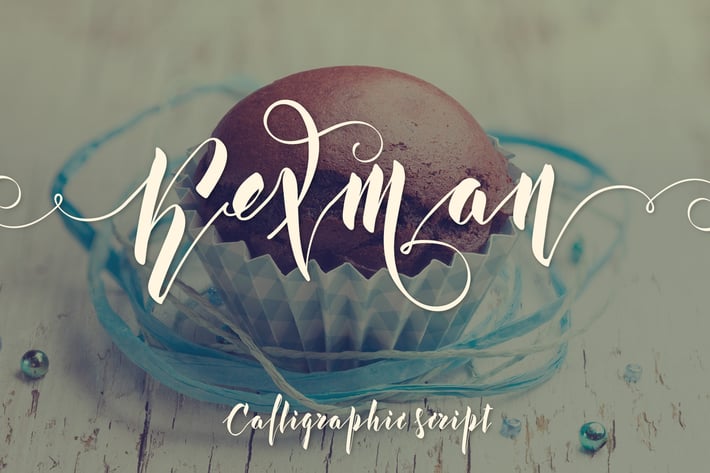
Kexman script font
Hi! Introducing a calligraphic handmade script named "Kexman". It's a connected font with many features: ligatures, alternates, swashes. All this features can be found in an OpenType or Glyphs panel.